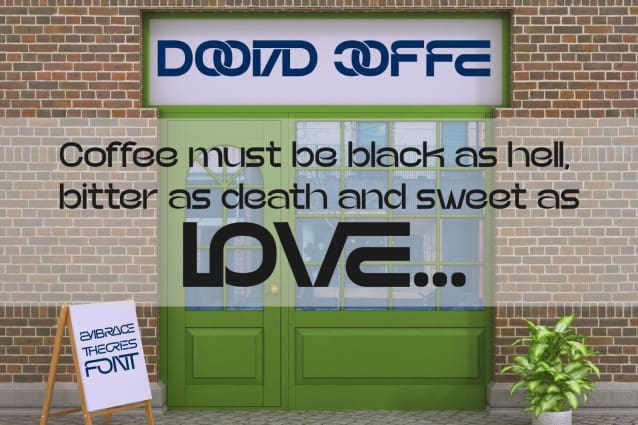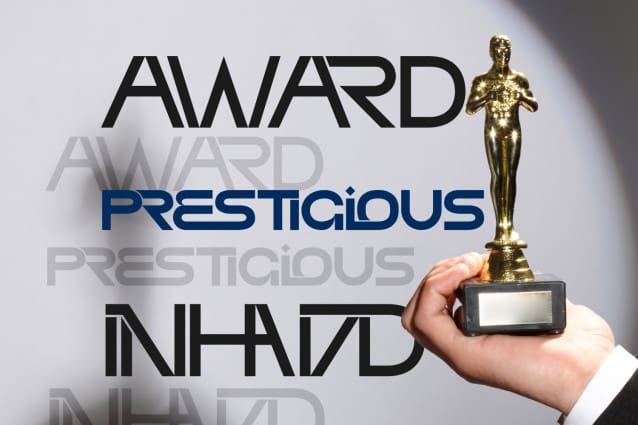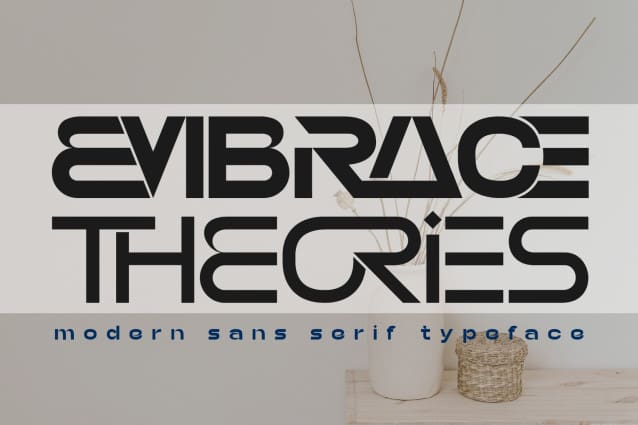
Embrace Theories Font
EMBRACE THEORIES FONT – could be the right sans-serif typeface for your project! It has a charming and distinctive character in every shape. This versatile font is suitable for a variety of projects, whether you’re going for a classic, grotesque, or heritage design. Coming with clear lines and strong characteristics, this versatile font can be used for various design application such as branding and logo design, product packaging, website design, digital and print advertising, social media graphics, corporate presentations, magazine layouts and headlines, etc.
EMBRACE THEORIES was built with OpenType features and includes 100 ligatures, alternate, numbers, punctuation, and it also supports other languages.
AC AD AL AN AR AS AT AU AV BE CA CE CH CO CT DE DI EA EC ED EE EL EM EN EP ER ES ET FE FO FR GE HA HE HI HO IE IC IL IN IO IR IS IT JU KE LA LE LI LL LO LY MA ME MI NC ND NE NG NO NT NS OC OF OM ON OO OP OR OT OU OW PA PR RA RD RE RI RO RS RT SE SH SI SO SS ST TA TE TH TI TO TR TT UM UN UR VE WI WO